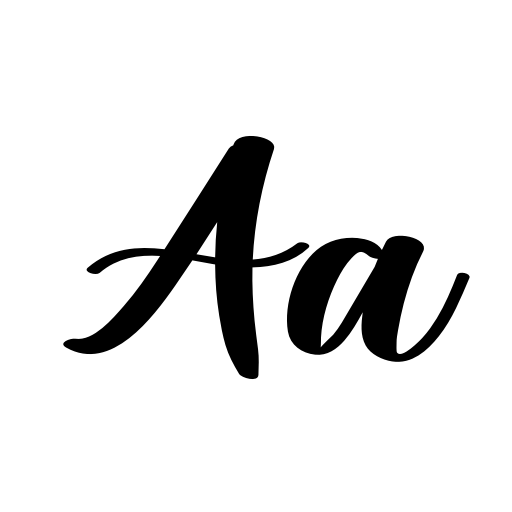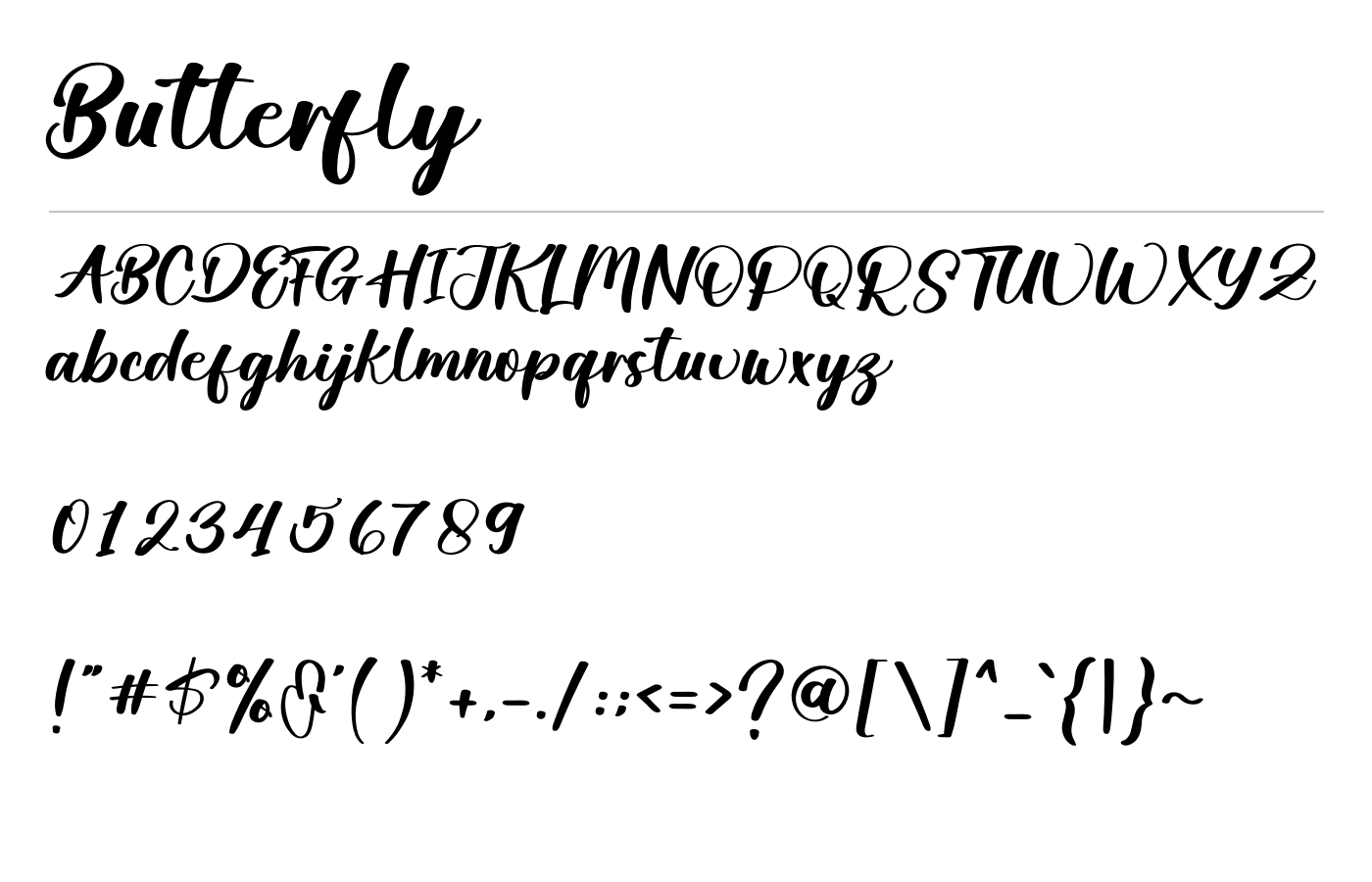
Butterfly is a playful and elegant script font with smooth, flowing strokes and medium contrast, giving it a lively yet refined feel. Its rounded letterforms and slightly slanted style make it perfect for creative projects like branding, invitations, and headlines that seek a warm, personable touch. This font works well where a friendly, artistic vibe is desired, adding charm without sacrificing readability.
Butterfly Font
About Butterfly Font